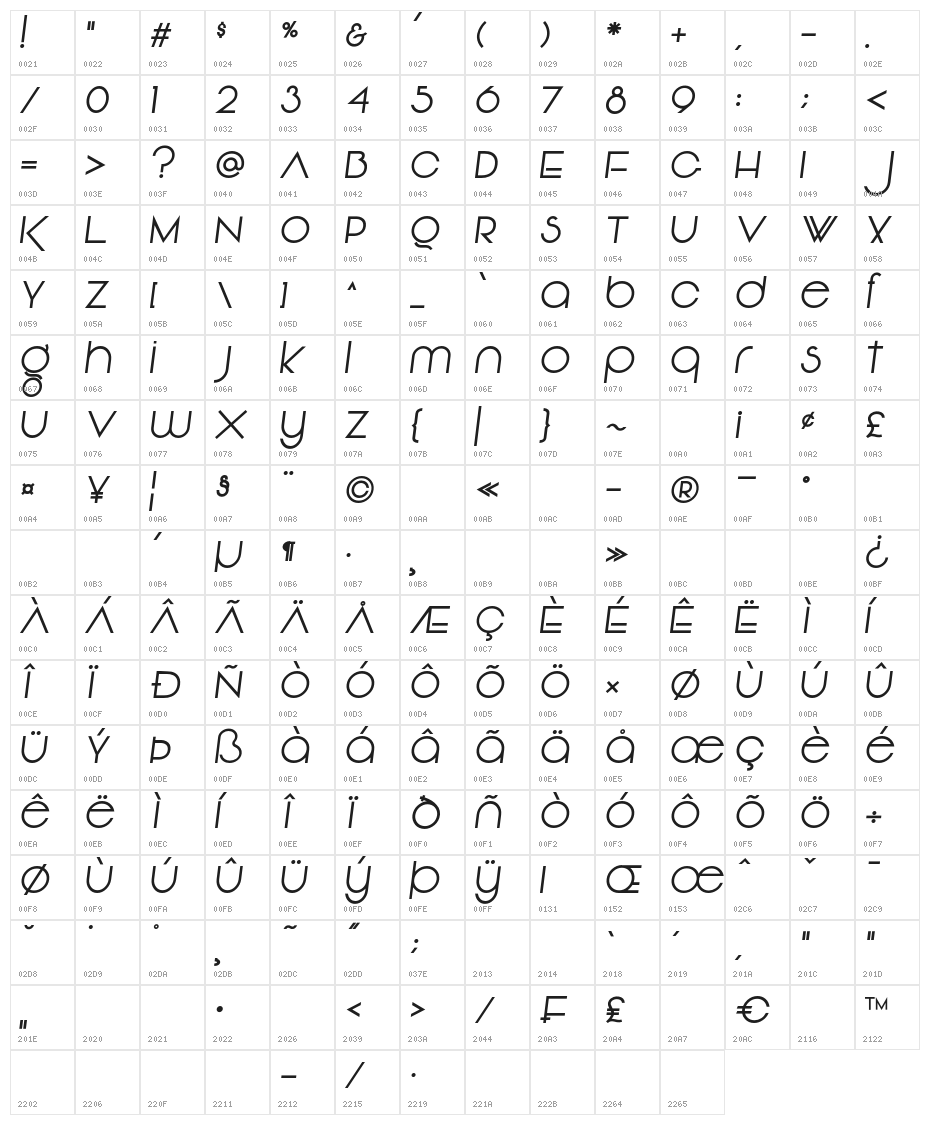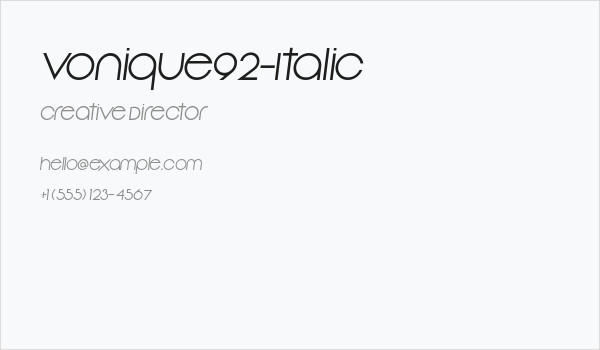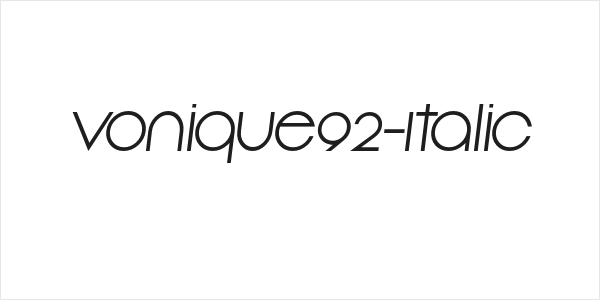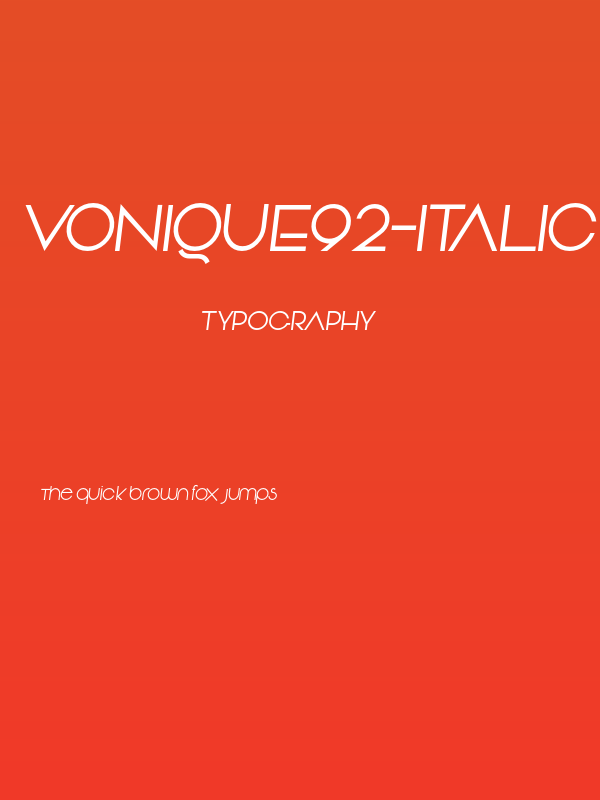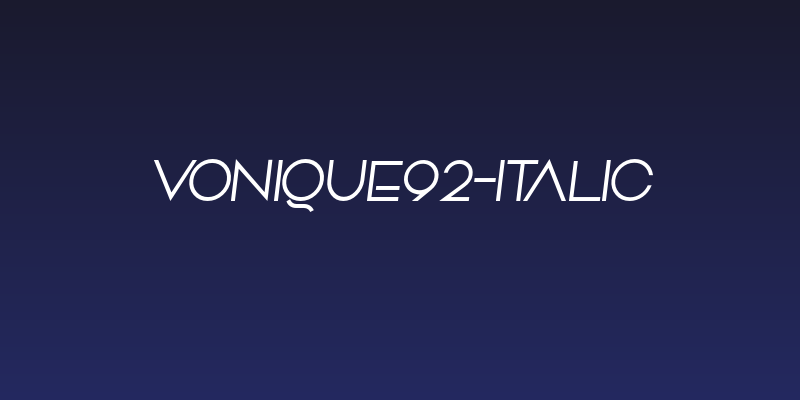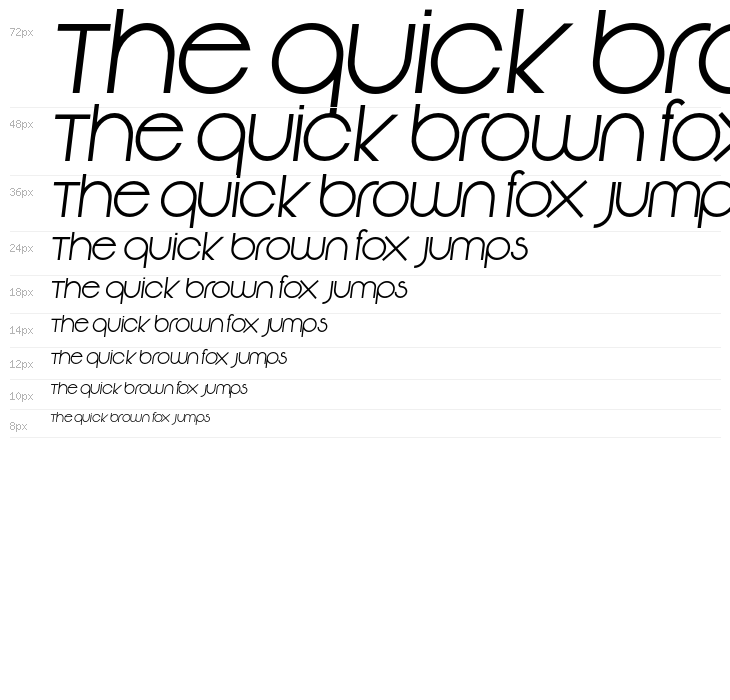
Vonique92-Italic Font
Vonique92-Italic Description
This font exhibits a sleek and modern aesthetic with a distinct italic style. The characters are crafted with a geometric precision, featuring sharp angles and clean lines that convey a sense of elegance and sophistication. The uppercase letters are bold and striking, while the lowercase letters maintain a consistent flow, enhancing readability. Numbers and special characters are designed with the same attention to detail, ensuring uniformity across all glyphs. The overall design is minimalistic yet impactful, making it suitable for a variety of contemporary design projects.